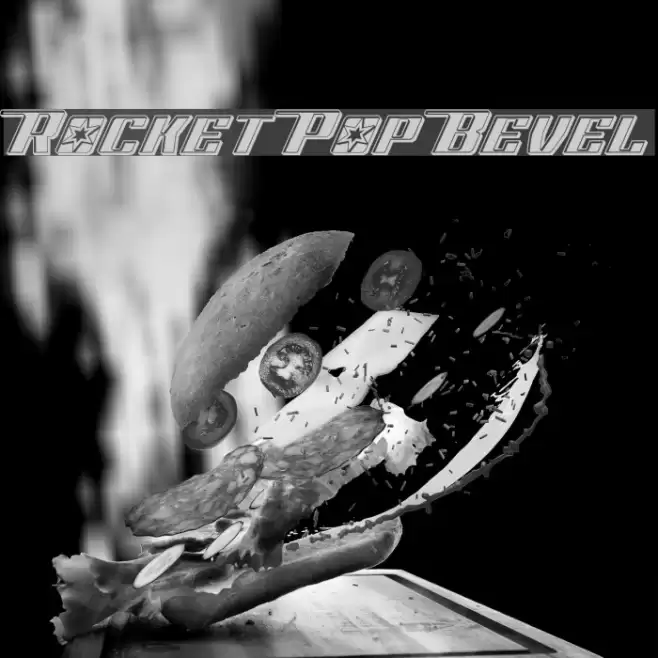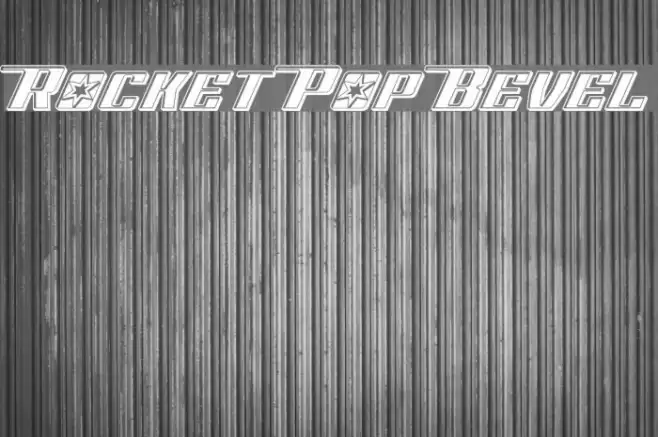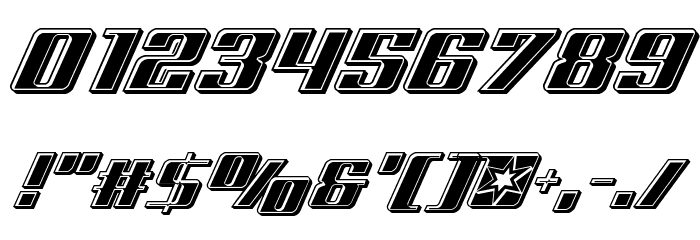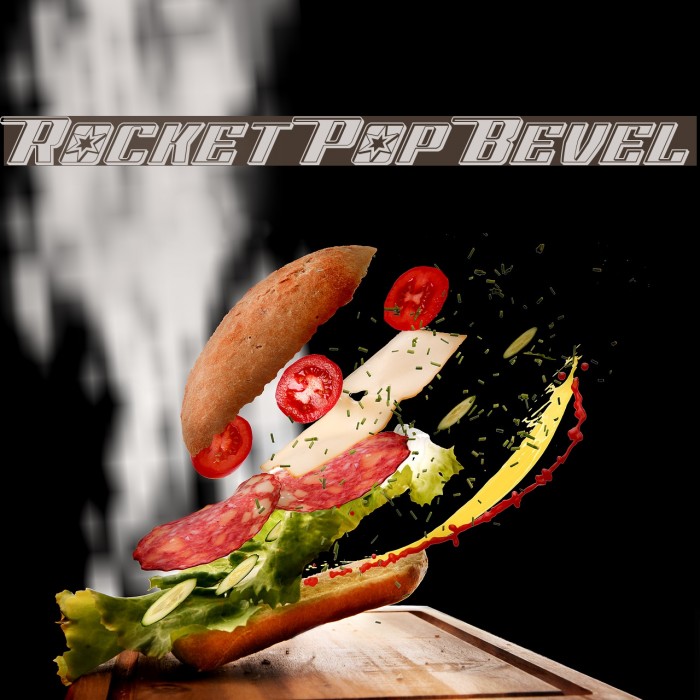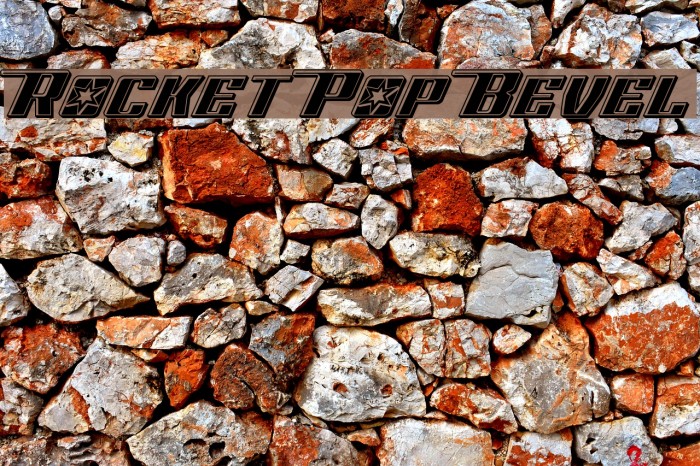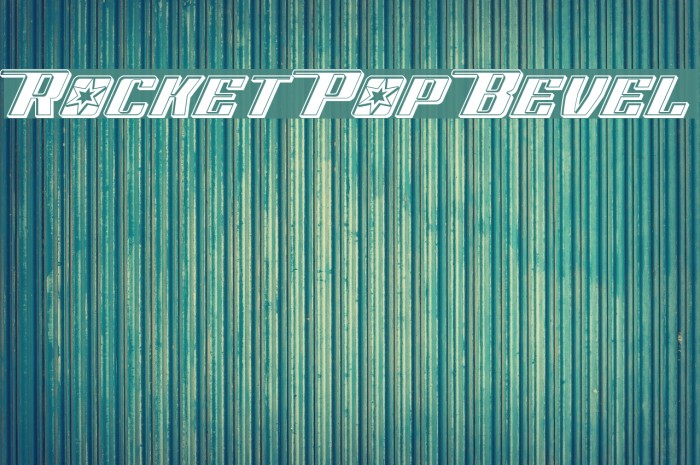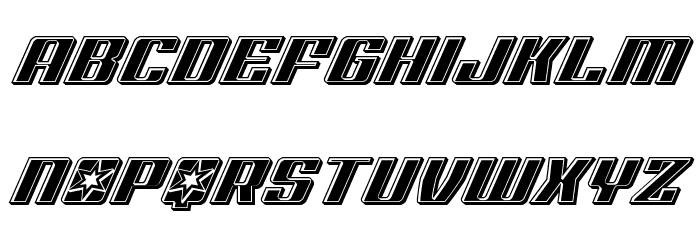
Rocket Pop Bevel Font
Rocket Pop Bevel Description
This font features a bold, dynamic style with a three-dimensional bevel effect that gives it a striking, futuristic appearance. The characters are outlined with a thick black border, enhancing their visibility and impact. Some letters incorporate star motifs, adding a playful and unique element to the design. The font is highly stylized, with sharp angles and a sense of motion, making it ideal for attention-grabbing headlines or logos. Its distinct look is reminiscent of retro-futuristic themes, combining elements of both vintage and modern design.
A bold, beveled font with star motifs and a retro-futuristic style from Uncategorized fonts.
- Proposed Projects: Ideal for use in sci-fi themed posters, video game titles, or branding for tech companies.
- Overall Style: Futuristic, Retro